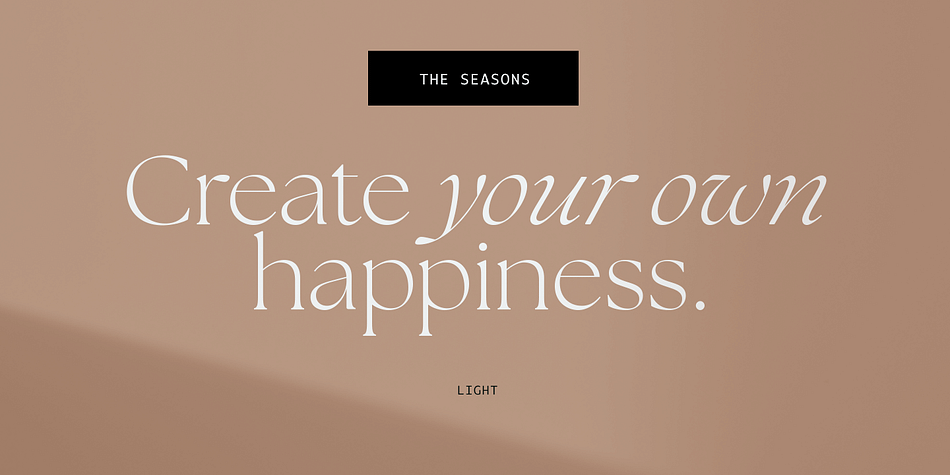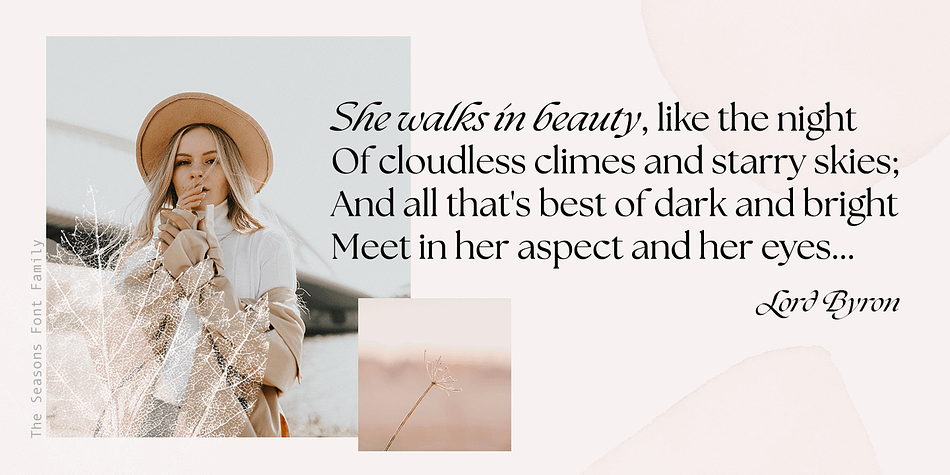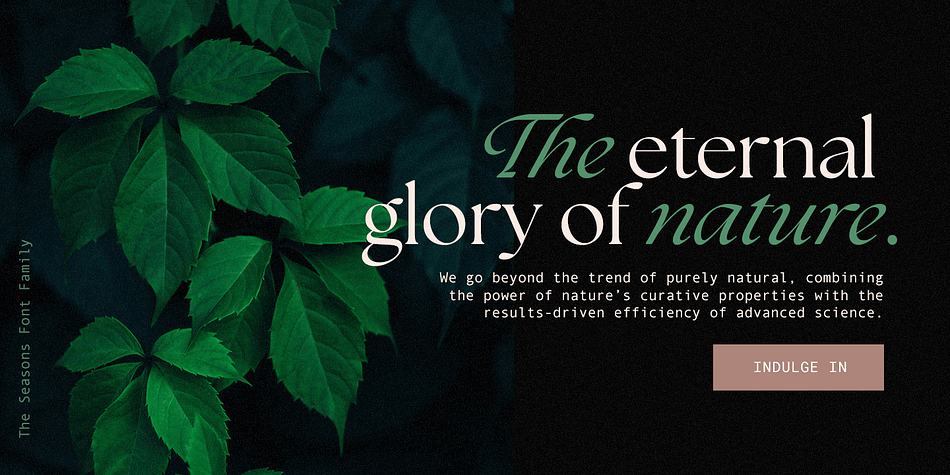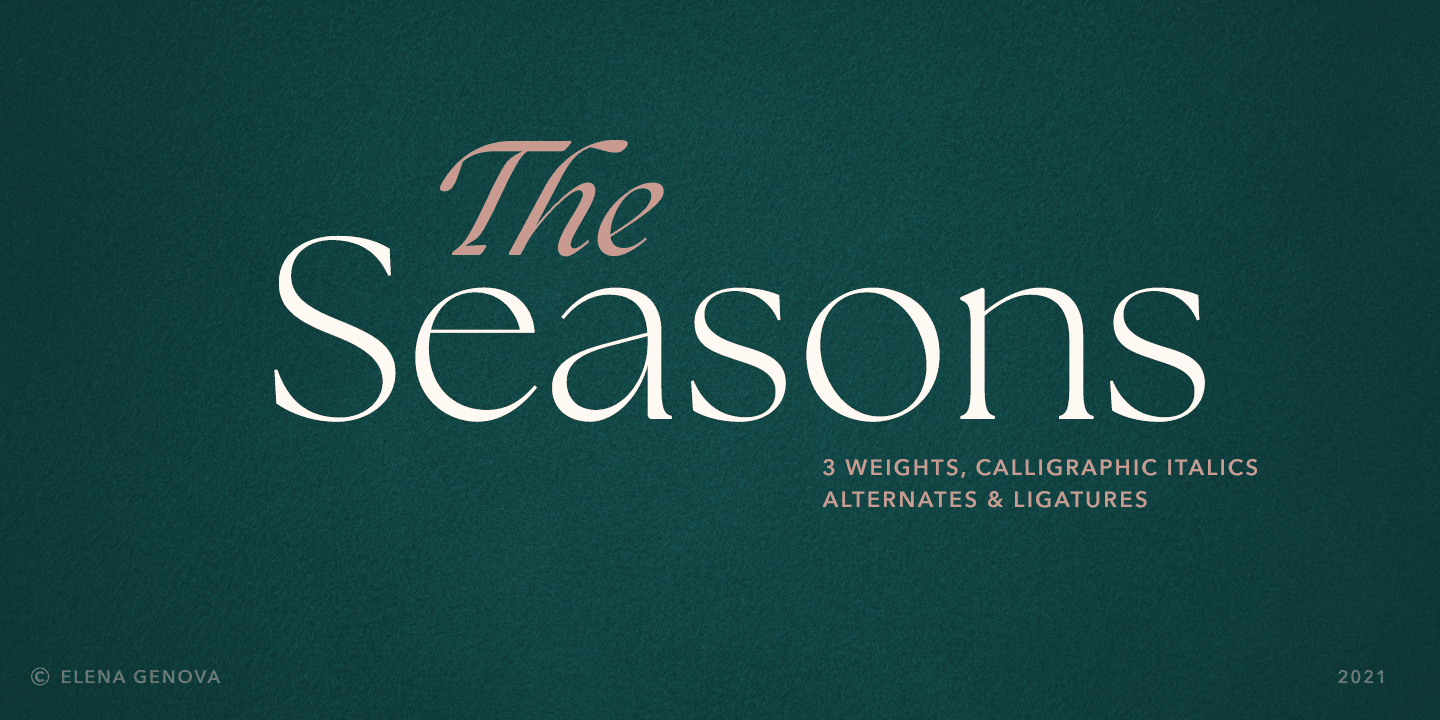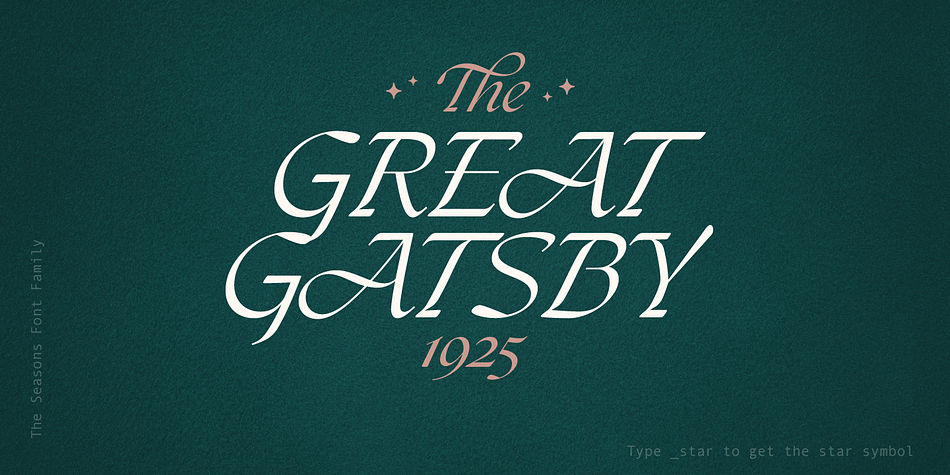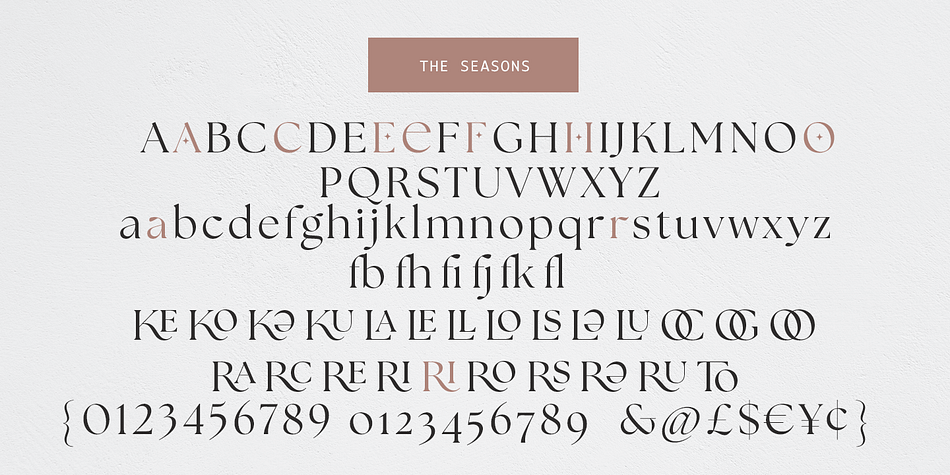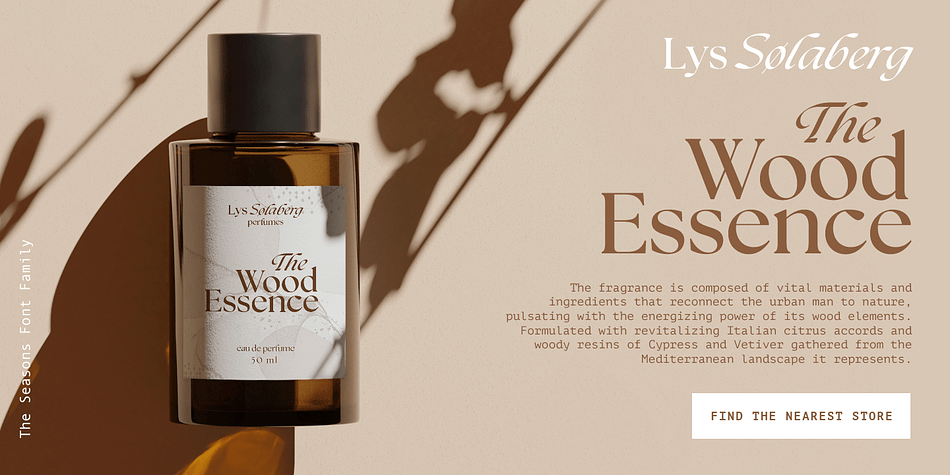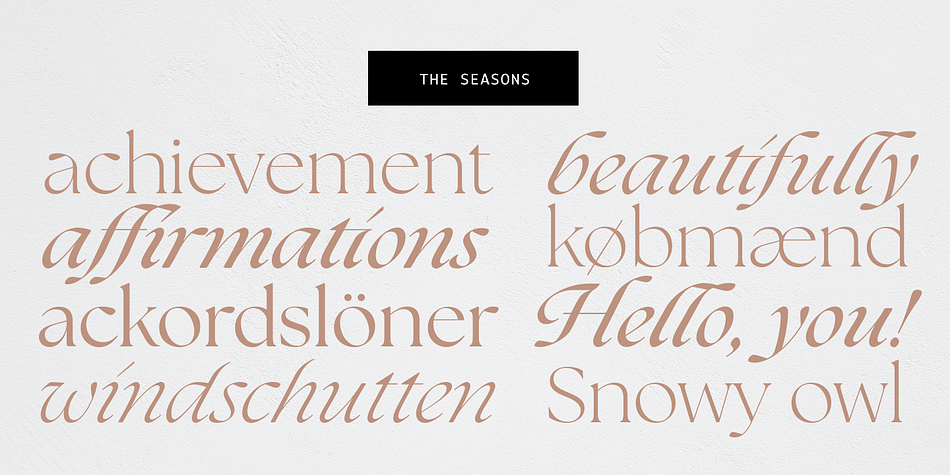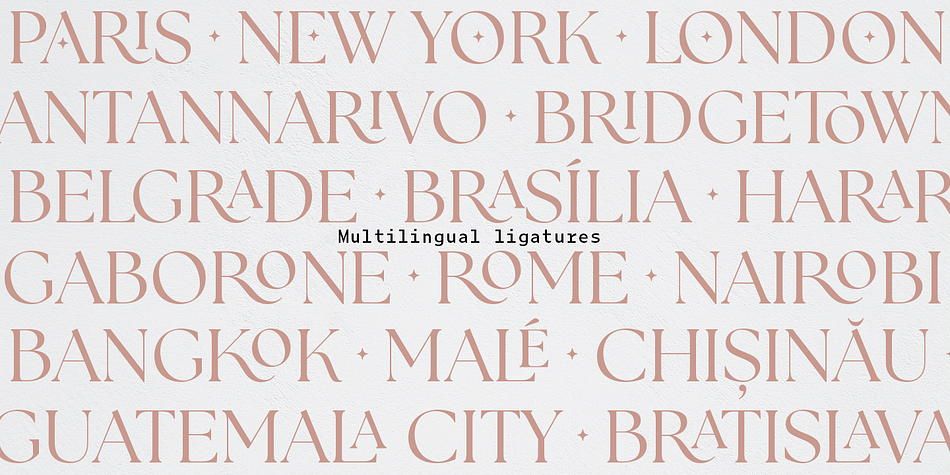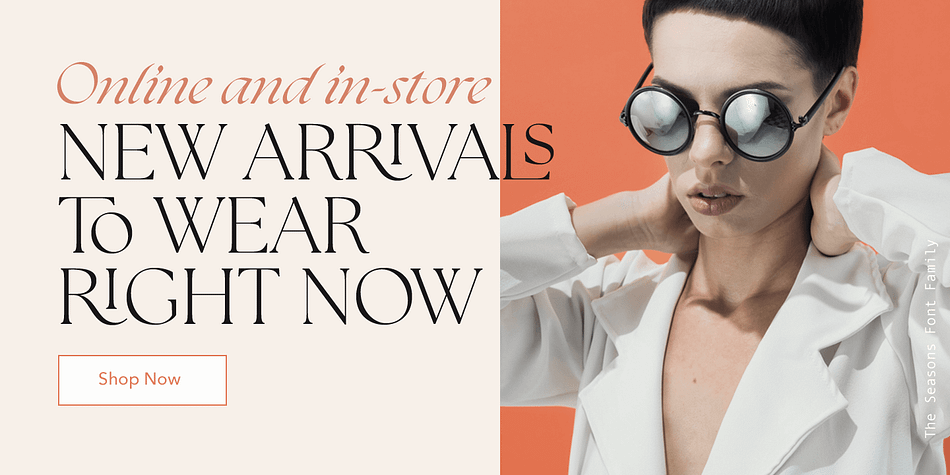
Designed by Elena Genova, The Seasons is a serif font family. This typeface has six styles and was published by My Creative Land.
The Seasons is an elegant classic serif font family consisting of a high contrast serif fonts with a vintage chic look, with corresponding calligraphic cursive italics that are based on a number of humanist italic scripts and written with a Pilot Parallel Pen.
Both upright and italic fonts (6 in total) share same style soft terminals with a sharp cut and are enhanced by OpenType features such as ligatures and stylistic alternates.
The Seasons can be used in high-end branding, logo designs, magazines, product packaging & invitations.